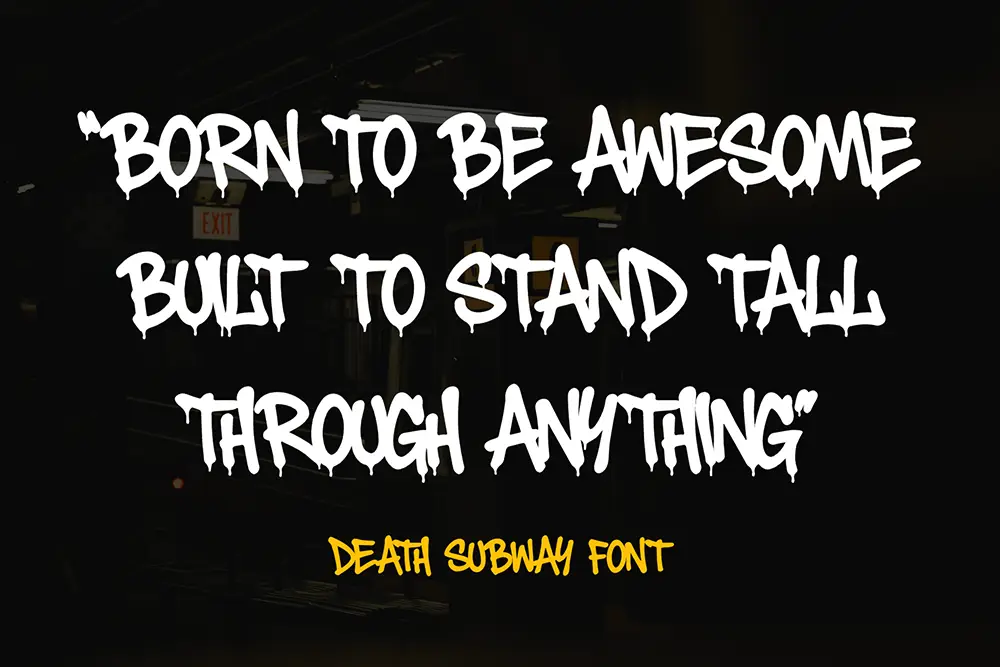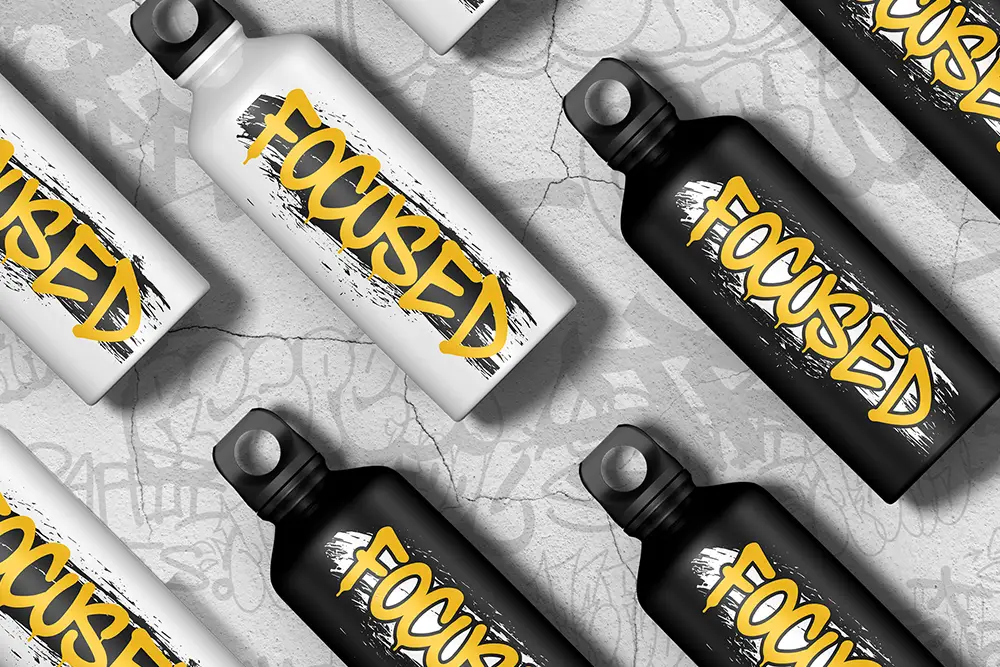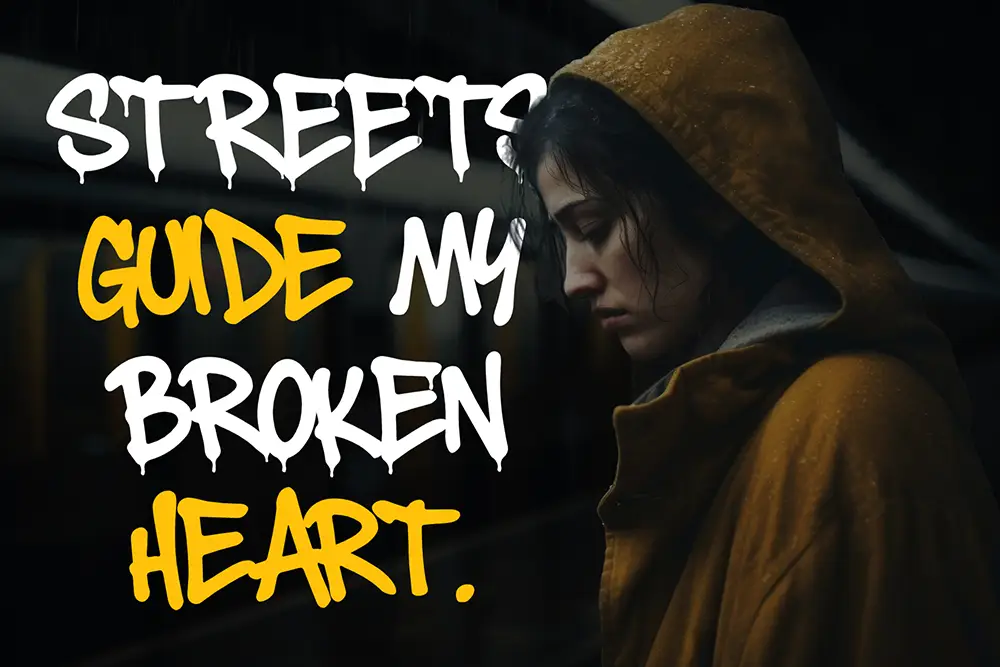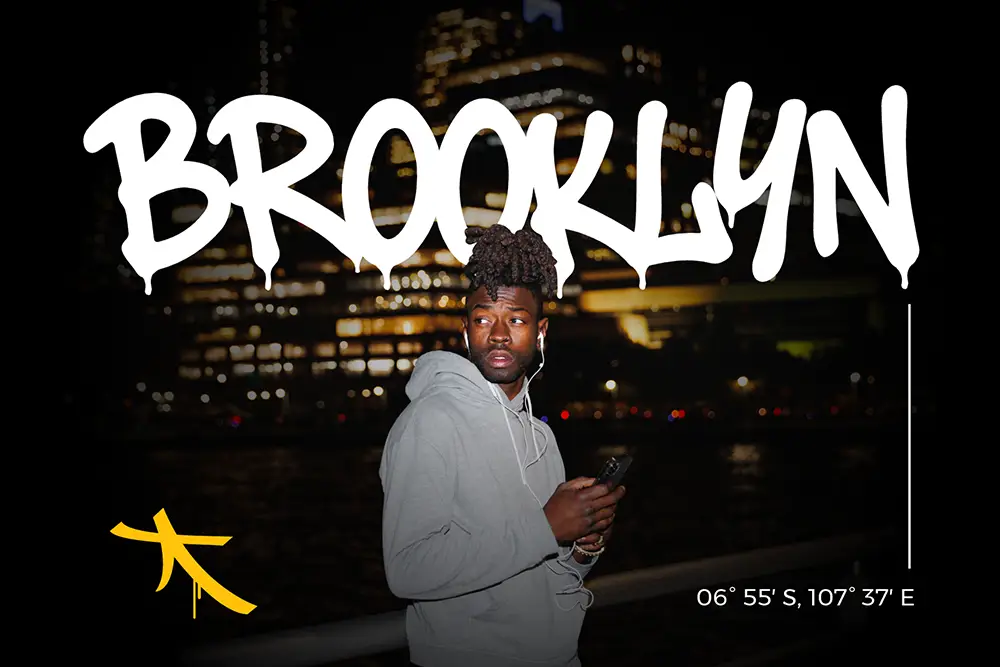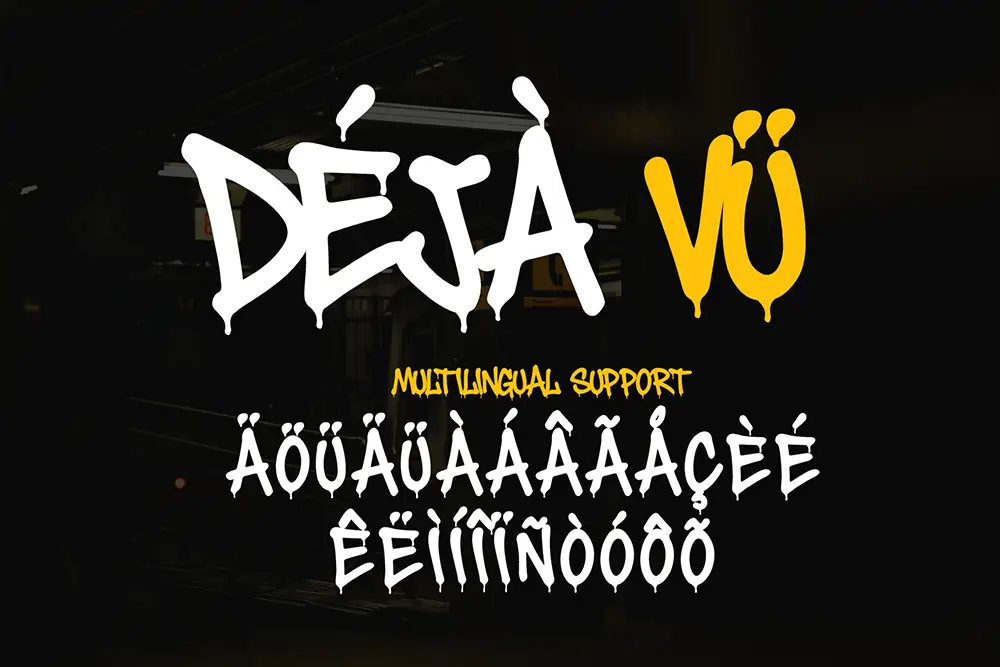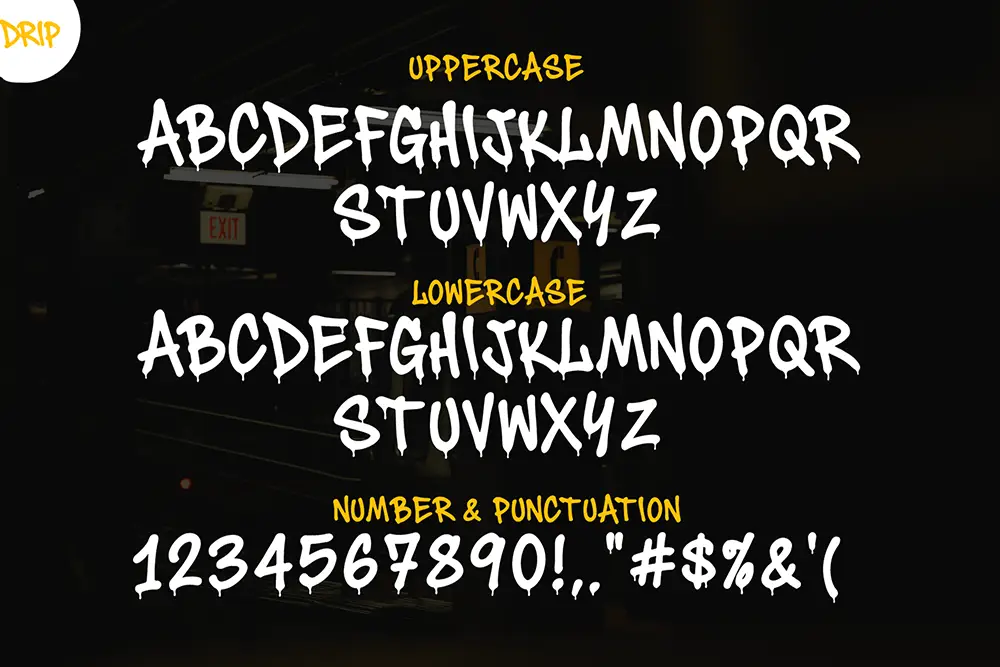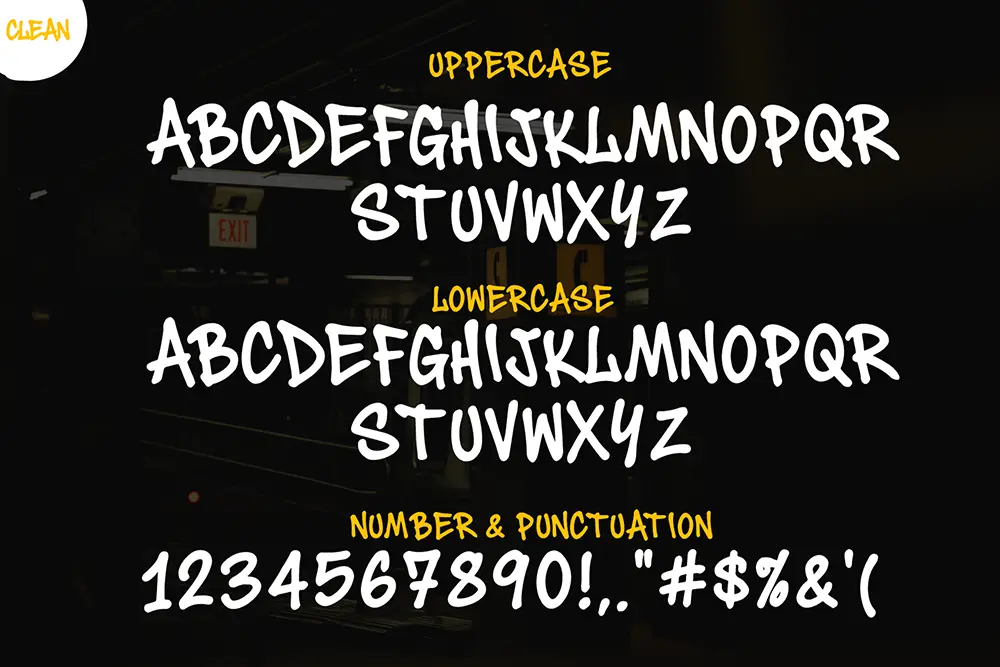
Death Subway – Handstyle Graffiti Font for Bold Street Designs
Typography has always been a language of style, rebellion, and personality. Death Subway – Handstyle Graffiti Font captures the true essence of street culture with its raw energy, dripping letters, and fearless style. This handstyle graffiti font was made for designers who want to inject urban grit and authenticity into their projects—perfect for logos, posters, album covers, and digital artwork that thrives on attitude and expression.
Whether you’re working on streetwear branding, urban event promotions, or powerful social media graphics, Death Subway delivers a design voice that’s bold, expressive, and unforgettable.
Handstyle Graffiti Font with Street Energy
Unlike regular display fonts, Death Subway embodies the rhythm and spirit of street art. Every stroke in this handstyle graffiti font mimics real graffiti tagging—fast, fluid, and full of movement. The letterforms are expressive yet balanced, making them suitable for both professional design use and artistic experimentation.
Death Subway comes in two versions:
This dual-style setup gives designers maximum flexibility, allowing them to mix authentic graffiti drip effects with cleaner text depending on project needs.
Key Features of Death Subway – Handstyle Graffiti Font
To help you make the most of this typeface, here are its main highlights:
- All Caps, Numbers & Punctuations: Great for impactful headlines and branding.
- Multilingual Support: Extended Latin characters for international design work.
- Urban Handstyle Look: Inspired by real graffiti calligraphy and tagging culture.
- Two Style Options: Clean and Drip versions for maximum versatility.
- High-Resolution Vector Quality: Crisp edges and scalable performance across media.
Why Designers Love Death Subway
Designers who crave authenticity are drawn to Death Subway because it isn’t just a font—it’s a statement. This handstyle graffiti font feels alive, imperfect, and full of character, allowing creative professionals to break free from clean, corporate norms.
Here’s why it’s a favorite:
- True Urban Feel – Each letter is shaped to resemble actual marker tags and spray lines.
- Strong Visual Impact – Perfect for brand identities, music covers, and street culture campaigns.
- Flexible Use – Comes with Drip style for raw creativity or standard style for clean designs.
Death Subway for Logos and Branding
When you need a logo that screams individuality, Death Subway is the ultimate handstyle graffiti font choice. It’s made for artists, brands, and creators who want to express rebellion, youth culture, or street authenticity.
From album covers and skateboard brands to graffiti supply stores and urban clothing lines, Death Subway gives your branding the grit and confidence that only graffiti can express. The Drip version enhances this even further, making your visuals look raw and powerful.
Death Subway for Posters and Advertising
Posters need to grab attention in a split second—and that’s what this handstyle graffiti font does best. The dramatic, handwritten energy of Death Subway gives any poster or flyer a rebellious street vibe.
Use it for music events, creative festivals, or art exhibitions to instantly build that underground aesthetic. Combine Death Subway with a strong sans serif like Bolde for contrast and readability.
Death Subway in Digital and Social Media
In today’s fast-paced online world, visuals with personality win. Death Subway brings a bold, graffiti-driven style to social media graphics, YouTube thumbnails, streaming overlays, and cover art. Its handstyle graffiti font design makes your digital work feel human, passionate, and alive.
- Character Set: All Caps, Numbers, Punctuation
- Category: Handstyle Graffiti Font
- Best Uses: Logos, Posters, Album Covers, Urban Branding, Social Media